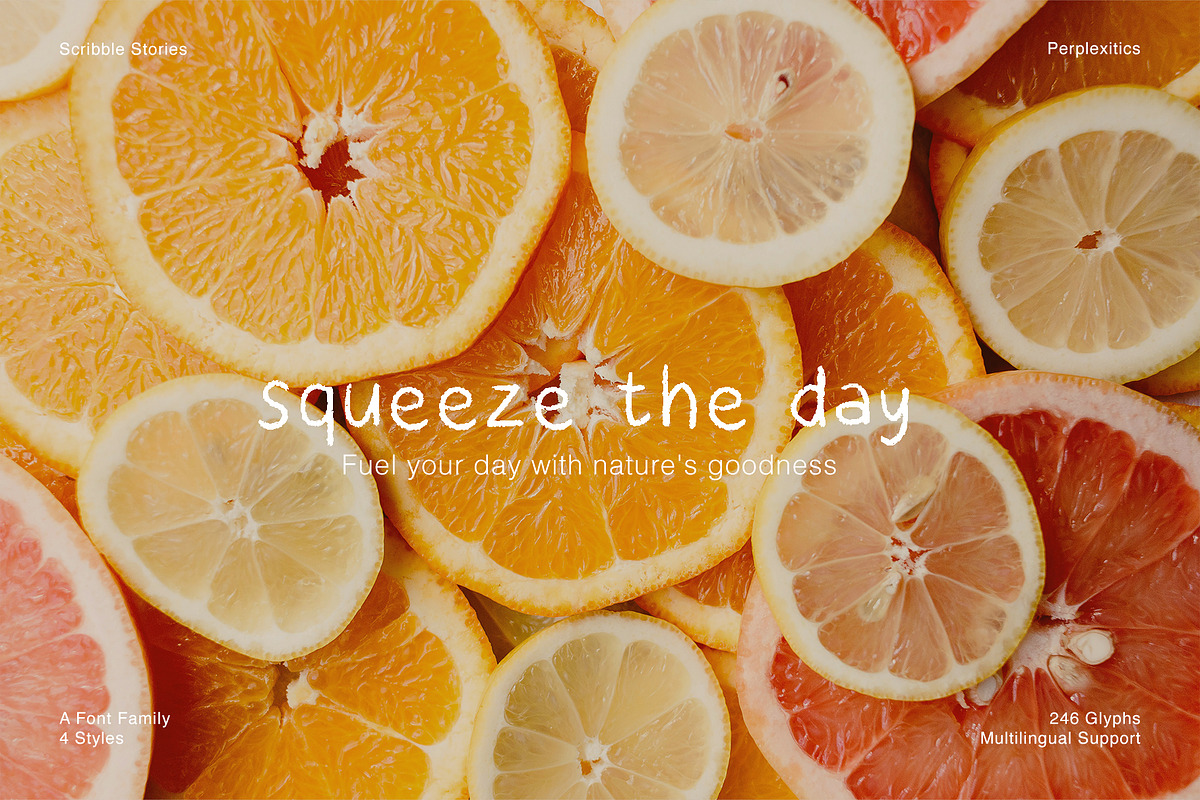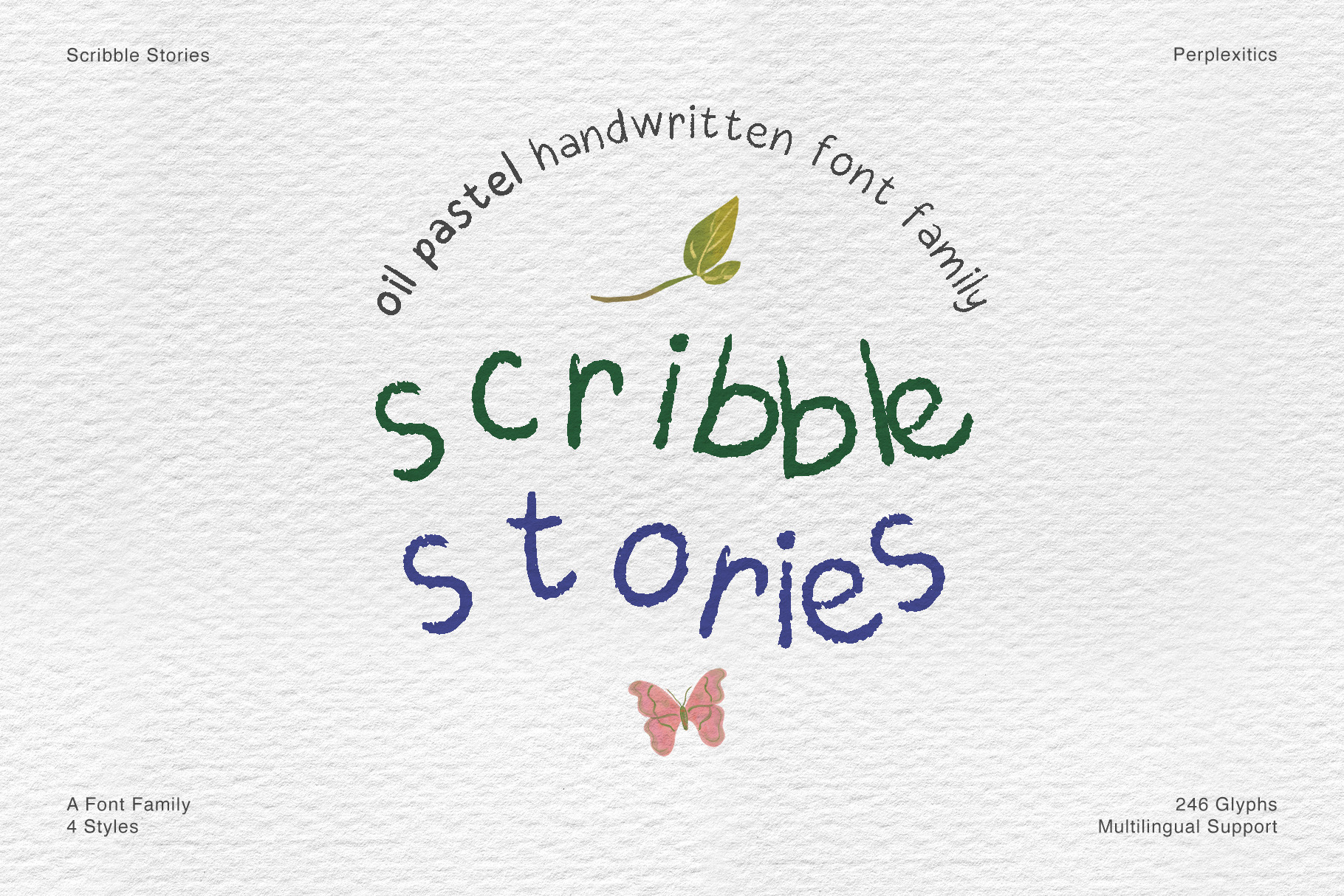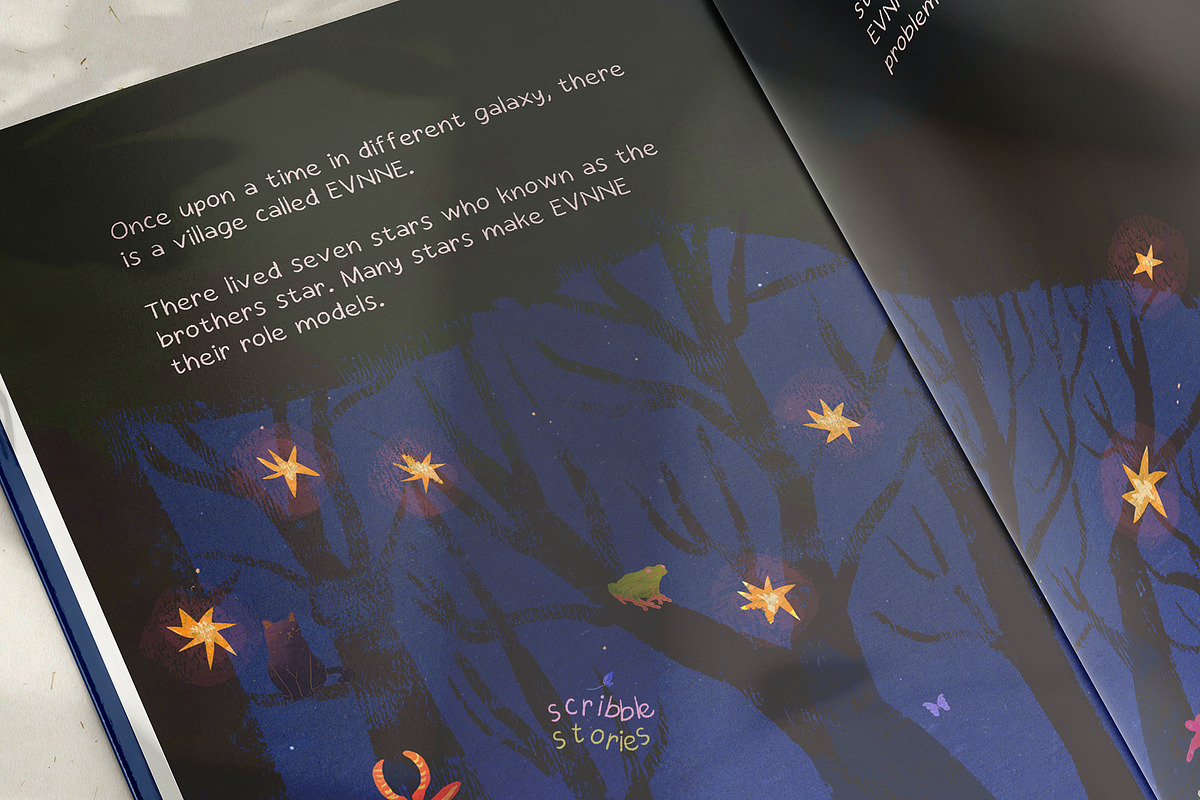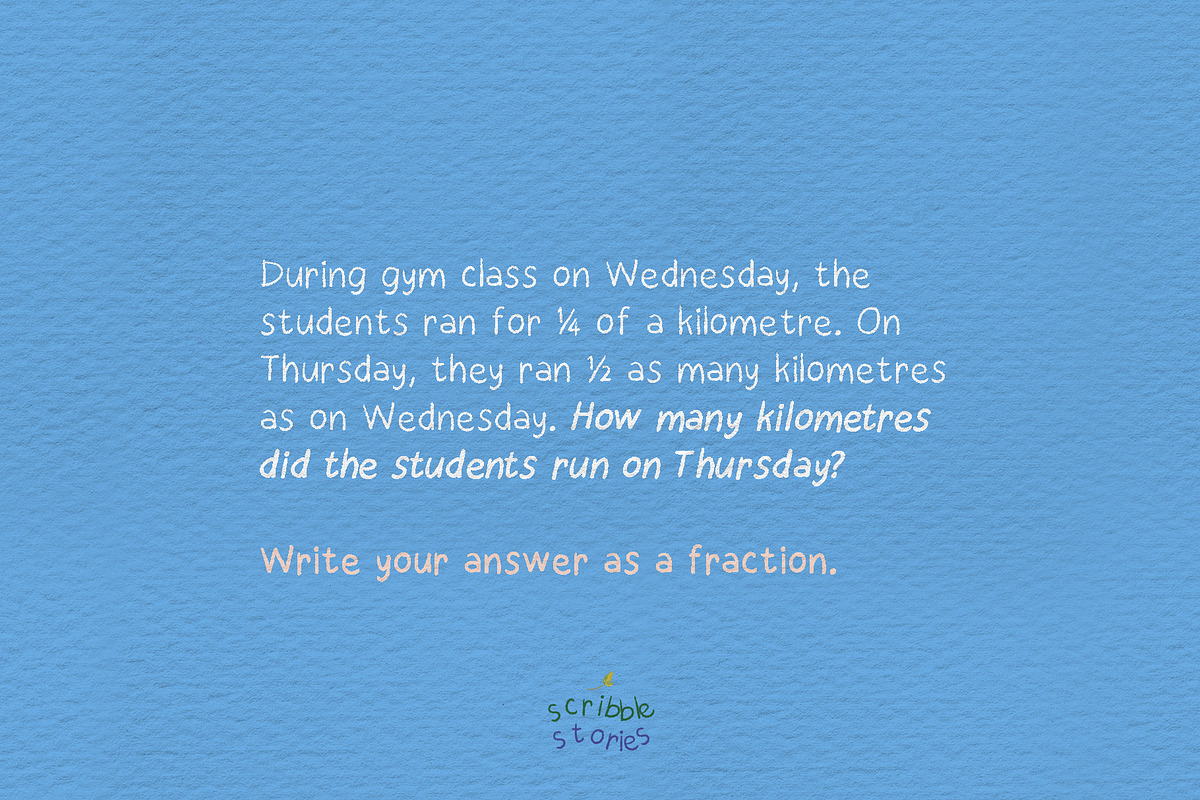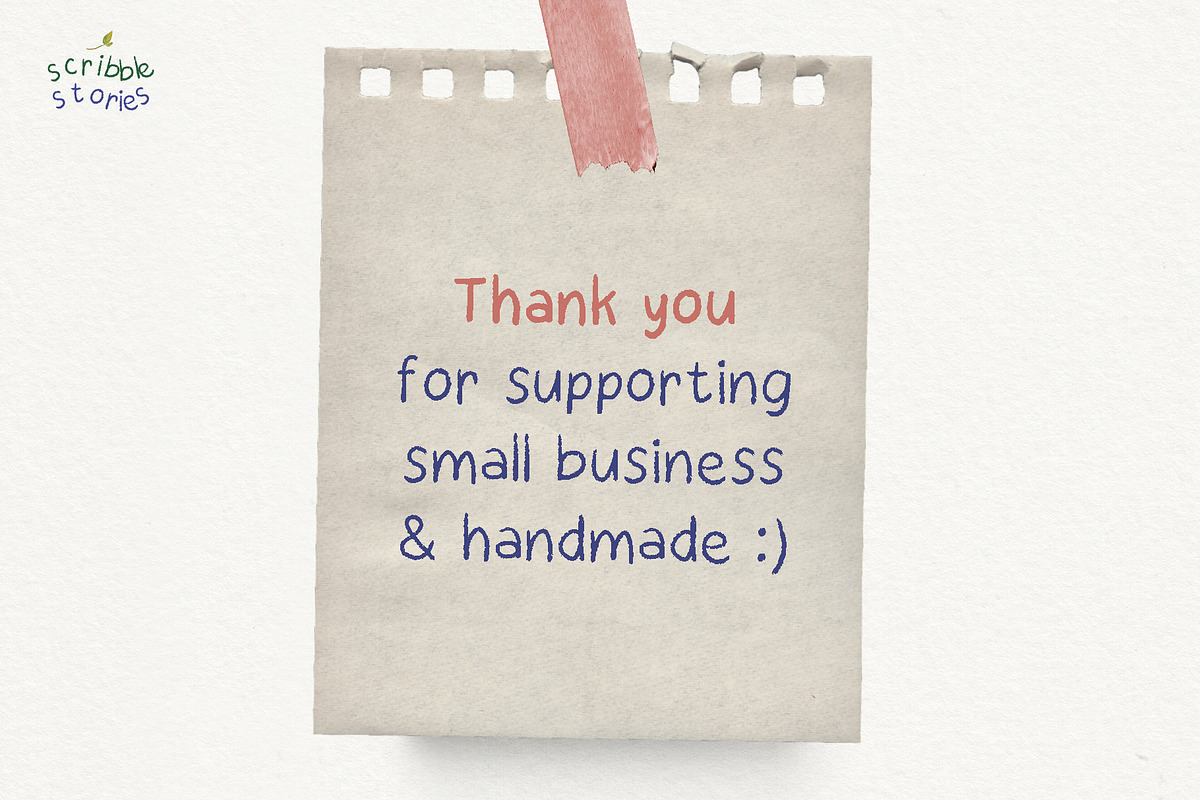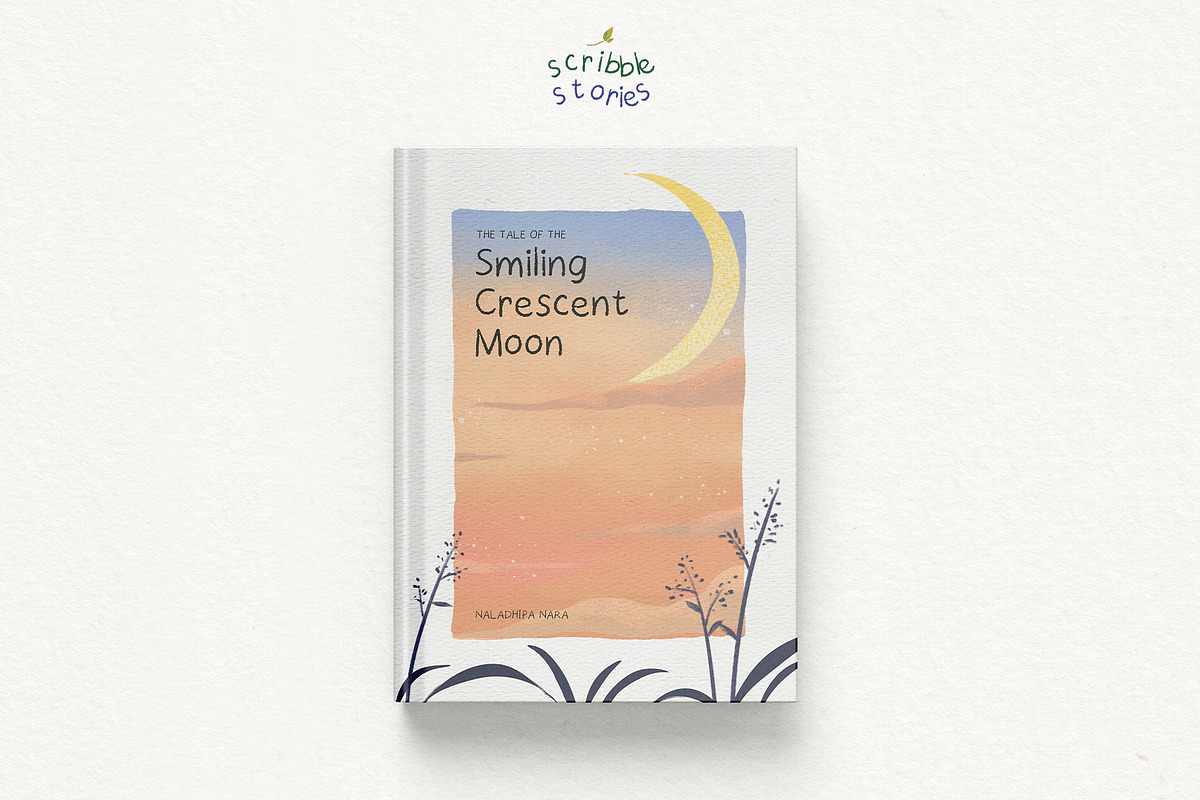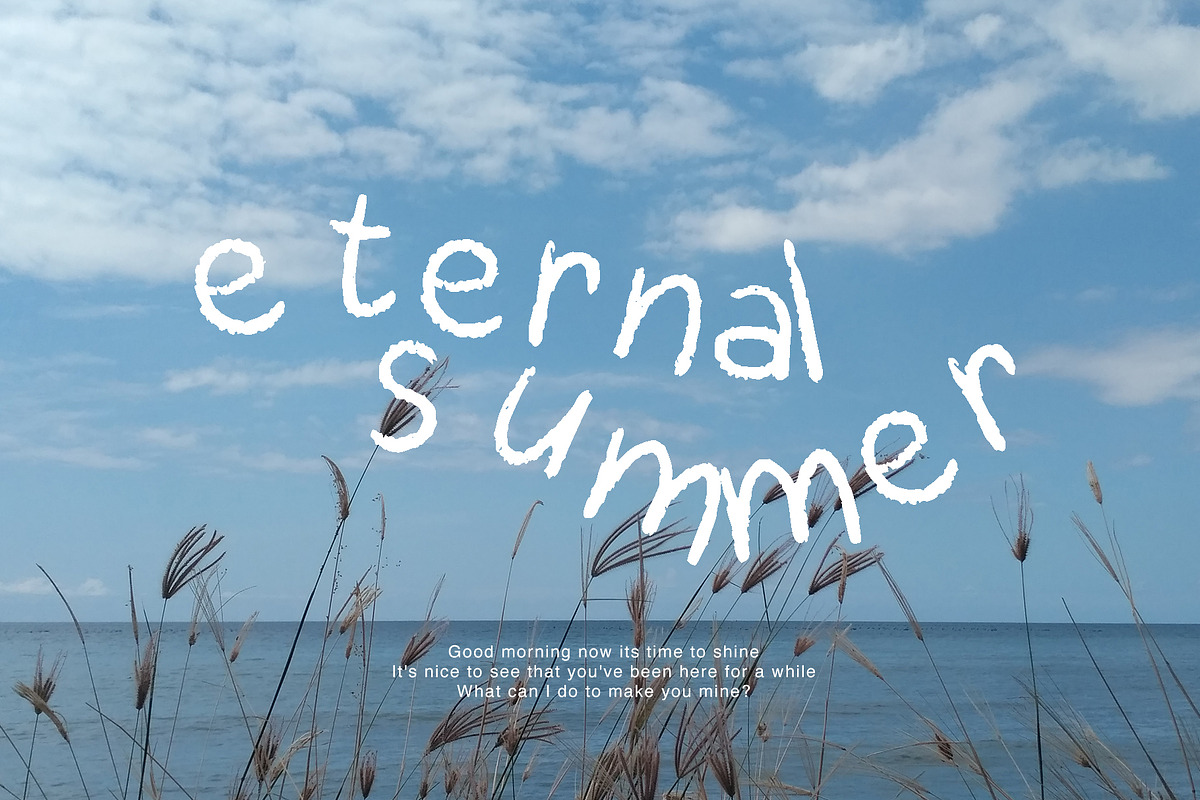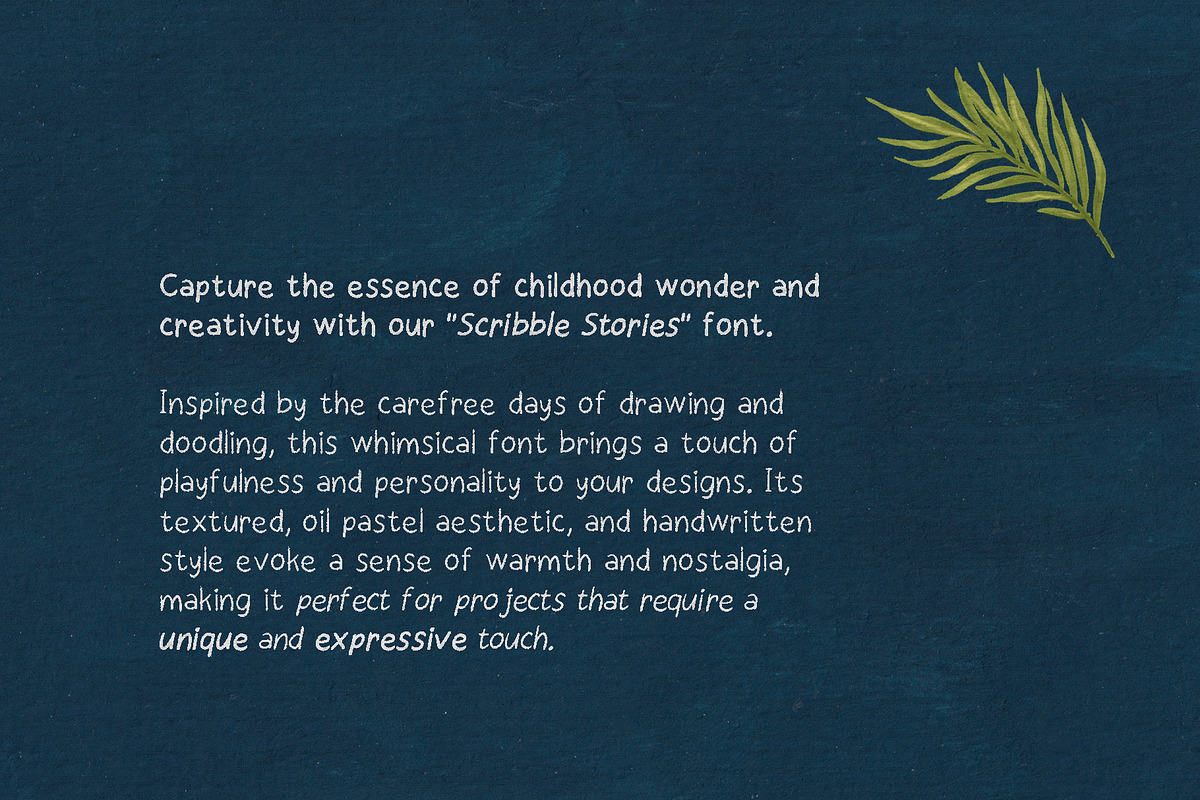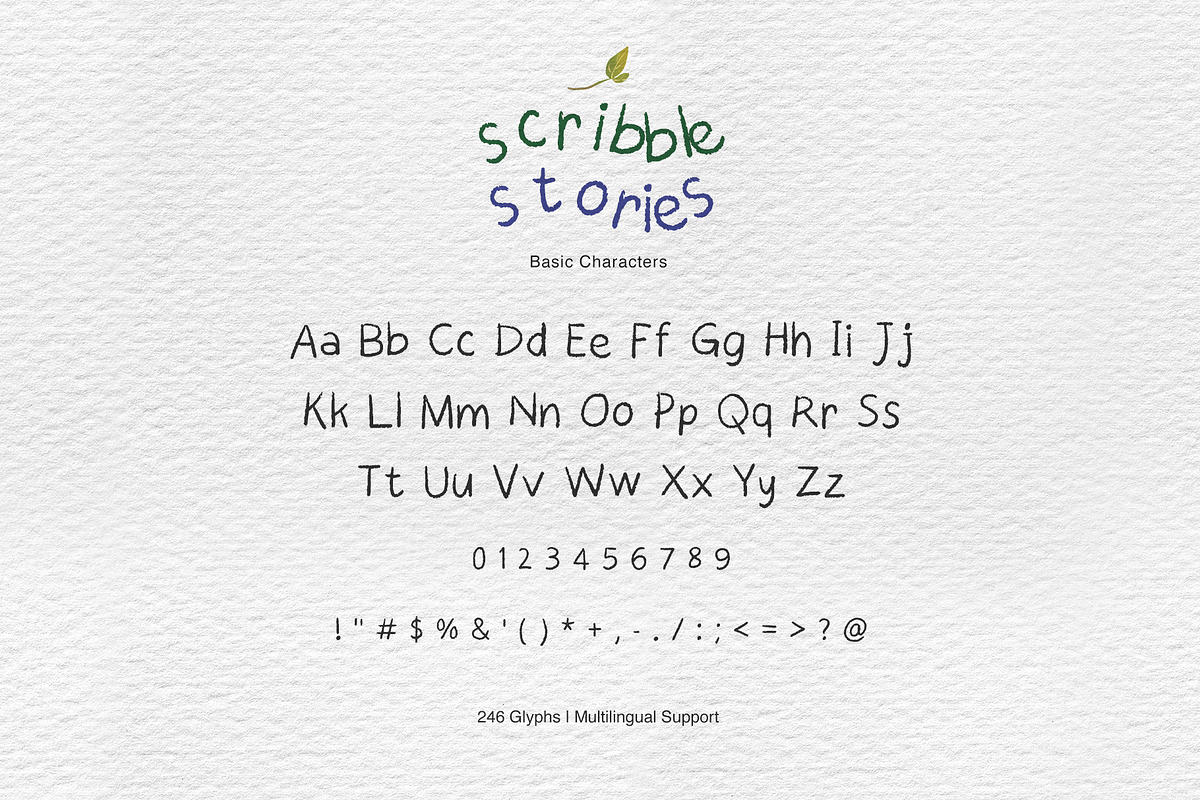
Oil Pastel Font Scribble Stories
Capture the essence of childhood wonder and creativity with our "Scribble Stories" font. Inspired by the carefree days of drawing and doodling, this whimsical font brings a touch of playfulness and personality to your designs. Its textured, oil pastel aesthetic and handwritten style evoke a sense of warmth and nostalgia, making it perfect for projects that require a unique and expressive touch.
Scribble Stories Font is packed with everything you need, including uppercase and lowercase letters, numbers, and punctuation. Consists of 246 glyphs and multilingual support